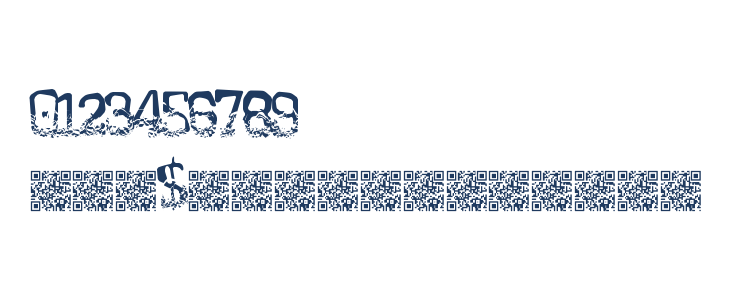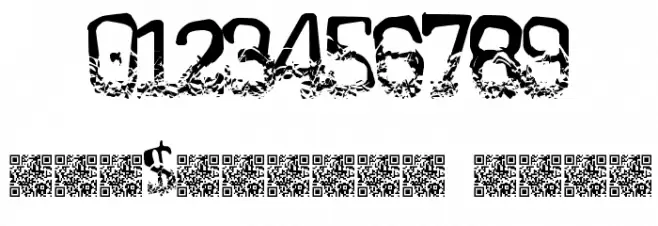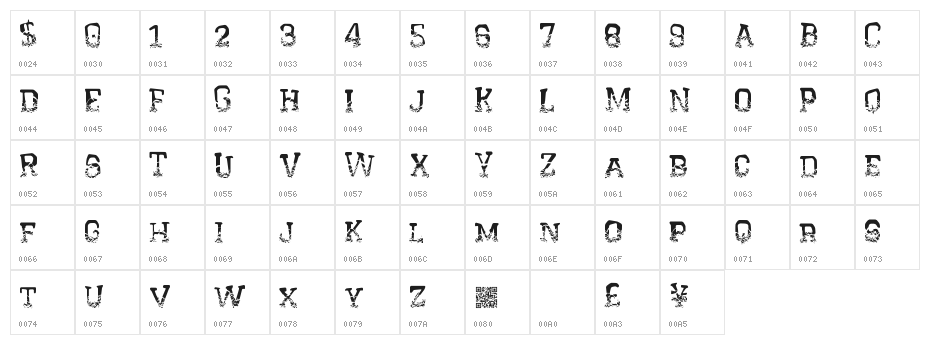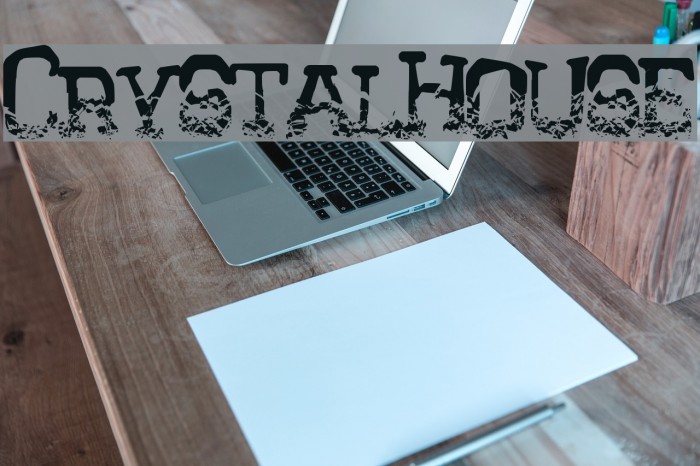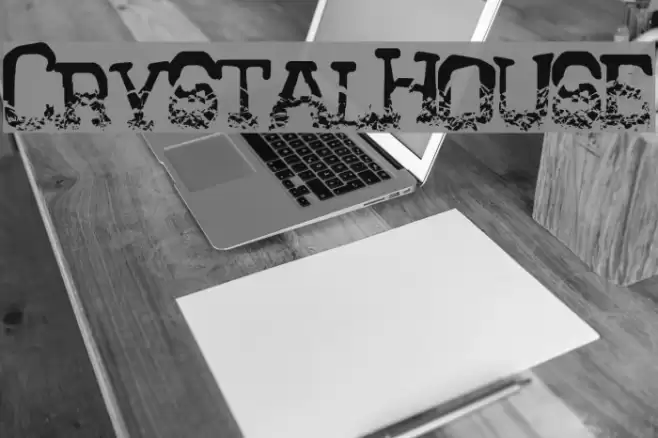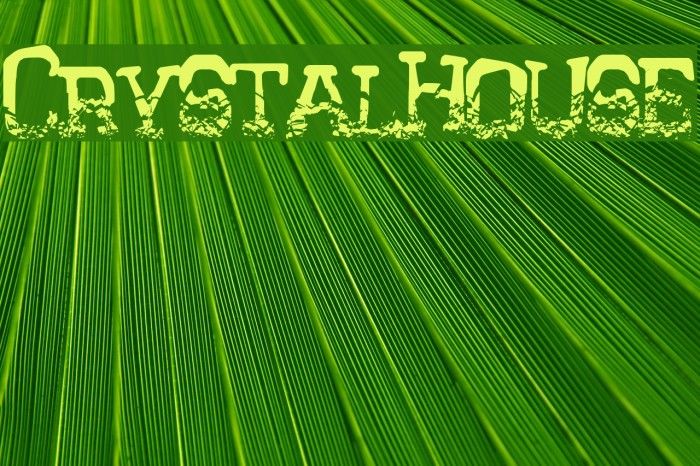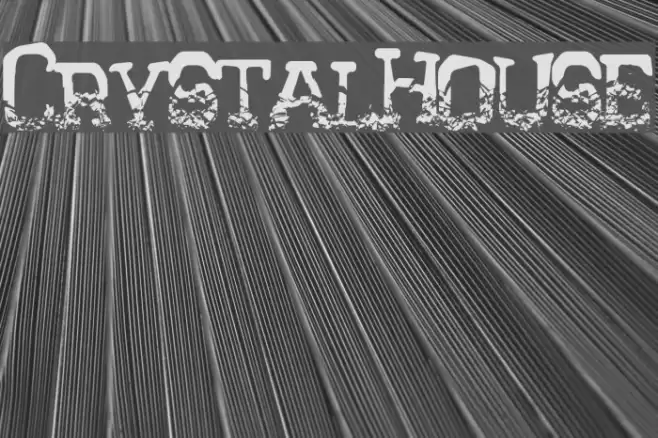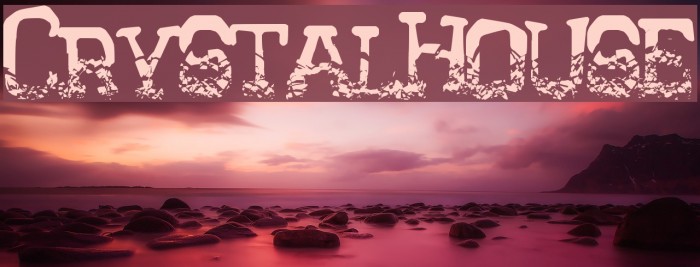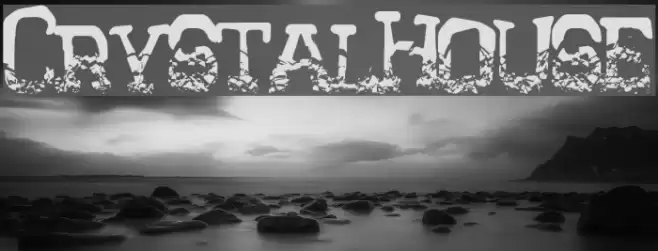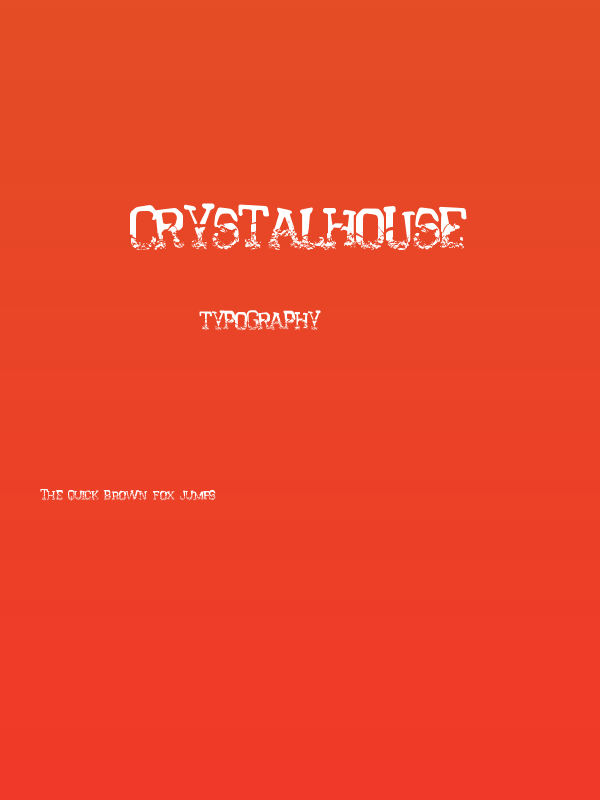
CrystalHouse Font
CrystalHouse Description
This font features a bold and distressed style, with a unique texture that gives it a rugged and edgy appearance. The characters are heavily stylized, with rough, uneven edges that create a sense of movement and dynamism. The uppercase and lowercase letters maintain a consistent design, with a strong emphasis on the boldness of each character. The numbers and special characters follow the same aesthetic, ensuring a cohesive look across all text. This font is ideal for projects that require a strong visual impact, such as posters, album covers, or branding materials that aim to convey a sense of rebellion or nonconformity.
| Proposed Projects | Ideal for posters, album covers, branding materials, and any design needing a rebellious or nonconformist vibe. |